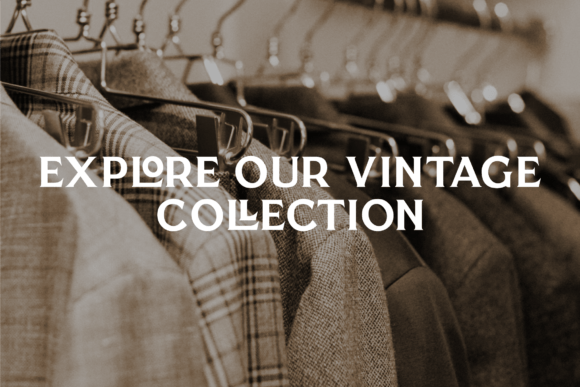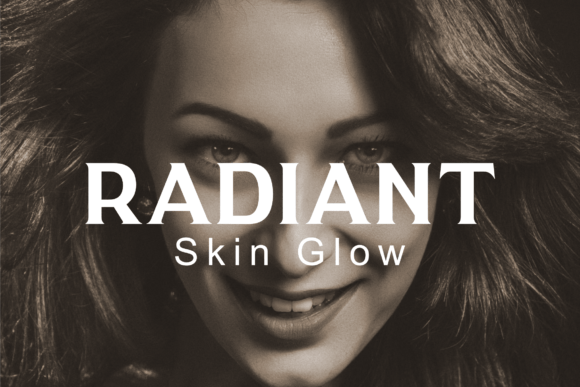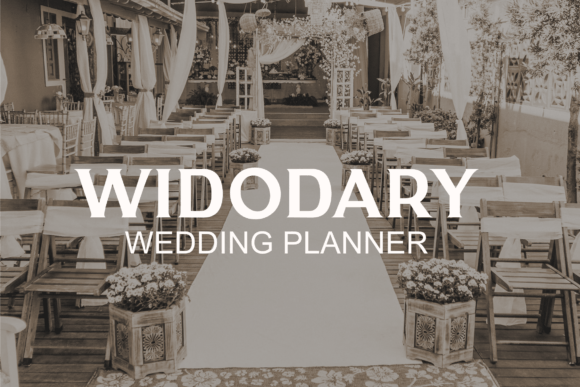
Introduction to Clephons Font
Introducing, Clephons is a captivating serif display font that exudes timeless elegance.
Crafted as an all-capital typeface, this font is a homage to vintage letterforms, blending classic charm with a touch of modern sophistication Perfectly tailored for branding, headlines, logos, and designs with a classic or vintage theme, Clephons effortlessly captures the essence of a bygone era.
Key Features of Clephons Font